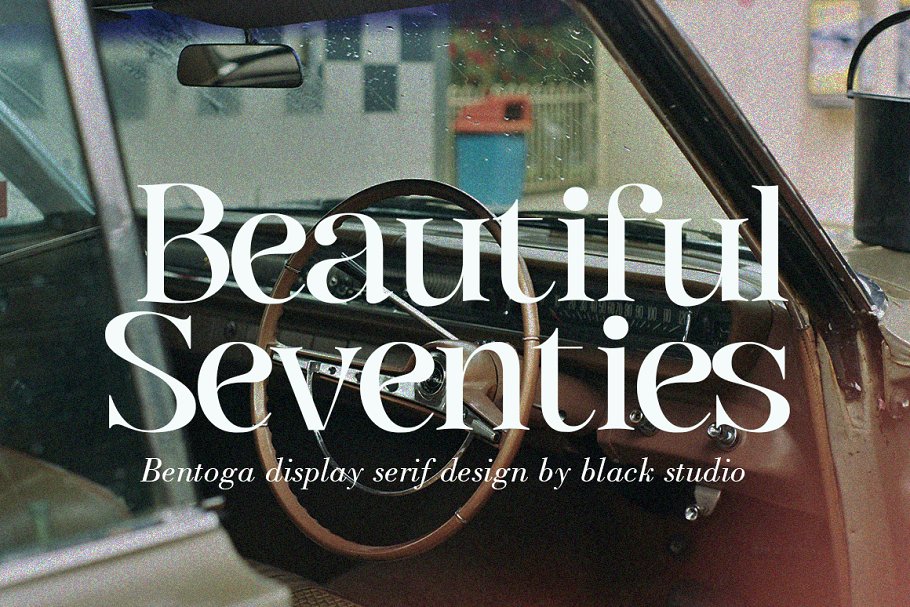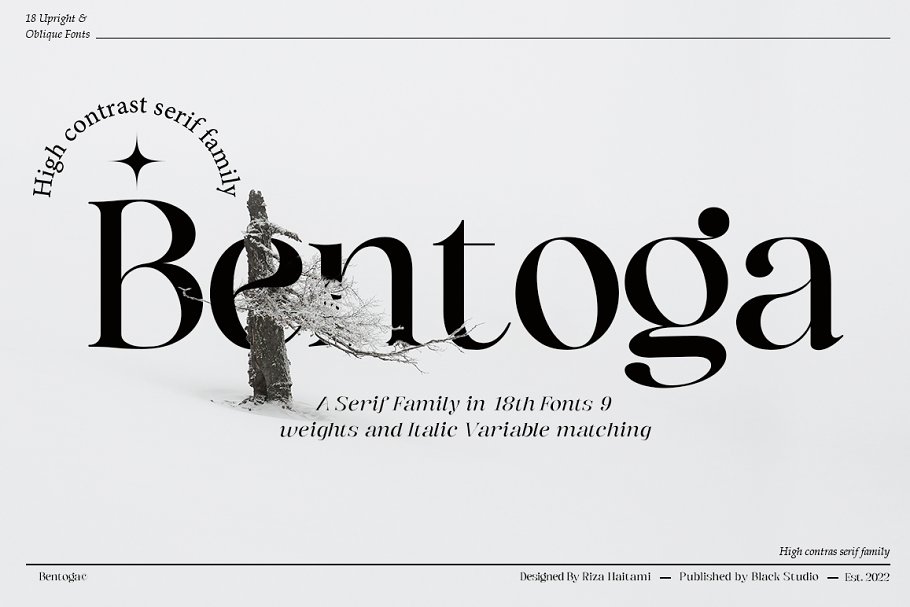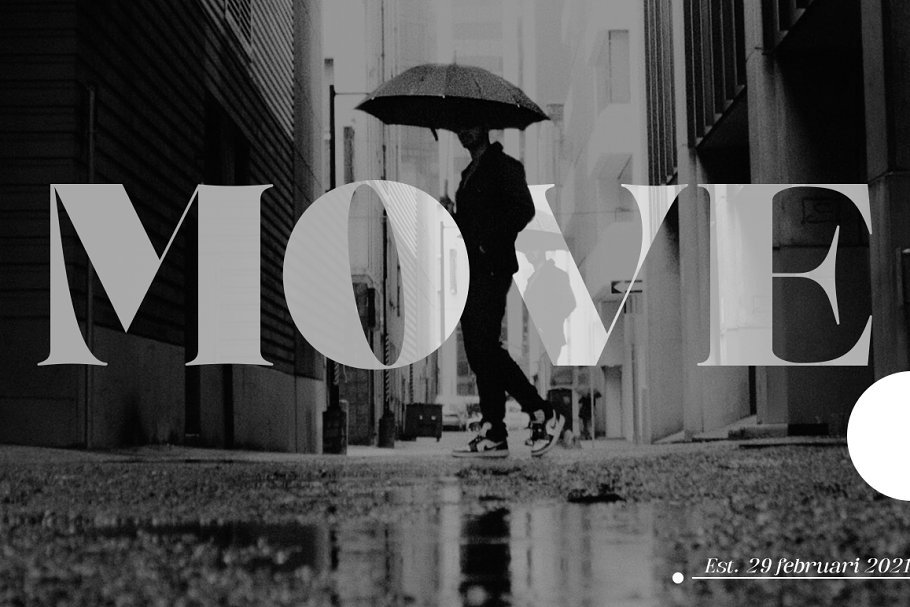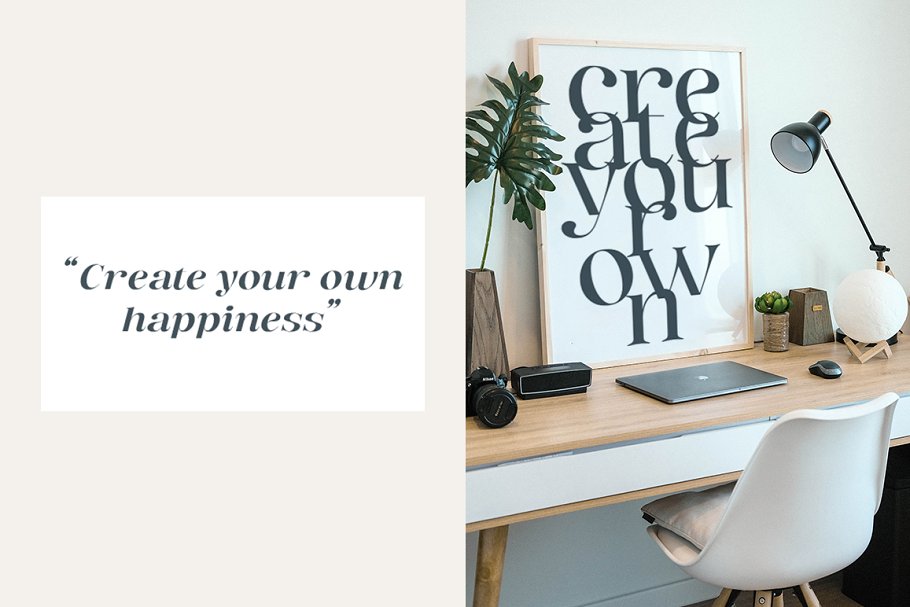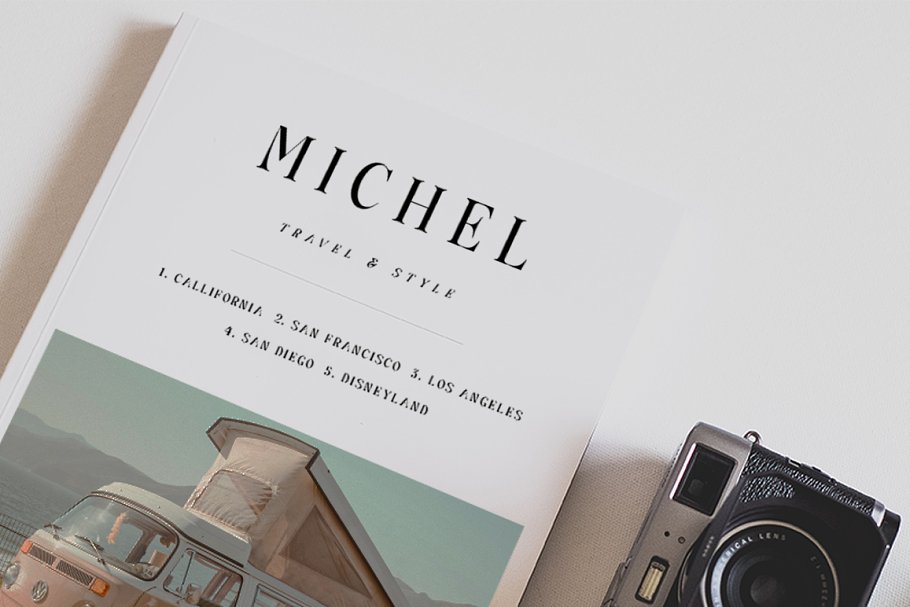
About the Bentoga Font
New from Black Studio, presenting bentoga is a typeface that is feminine, adaptable, aesthetically contemporary and creates limitless variety for your creative needs, Its striking contrasts and subtle details, together with luxurious strokes and voluptuous curves, create a beautiful and powerful statement for any typographic composition, blending glamor with contemporary aesthetics
Bentoga really helps you create unlimited variations for your creative needs in making your project titles: such as Books, fashion, magazines, logos, branding, photography, invitations, wedding invitations, quotes, blog headers, posters, advertisements, postcards, books, websites, etc